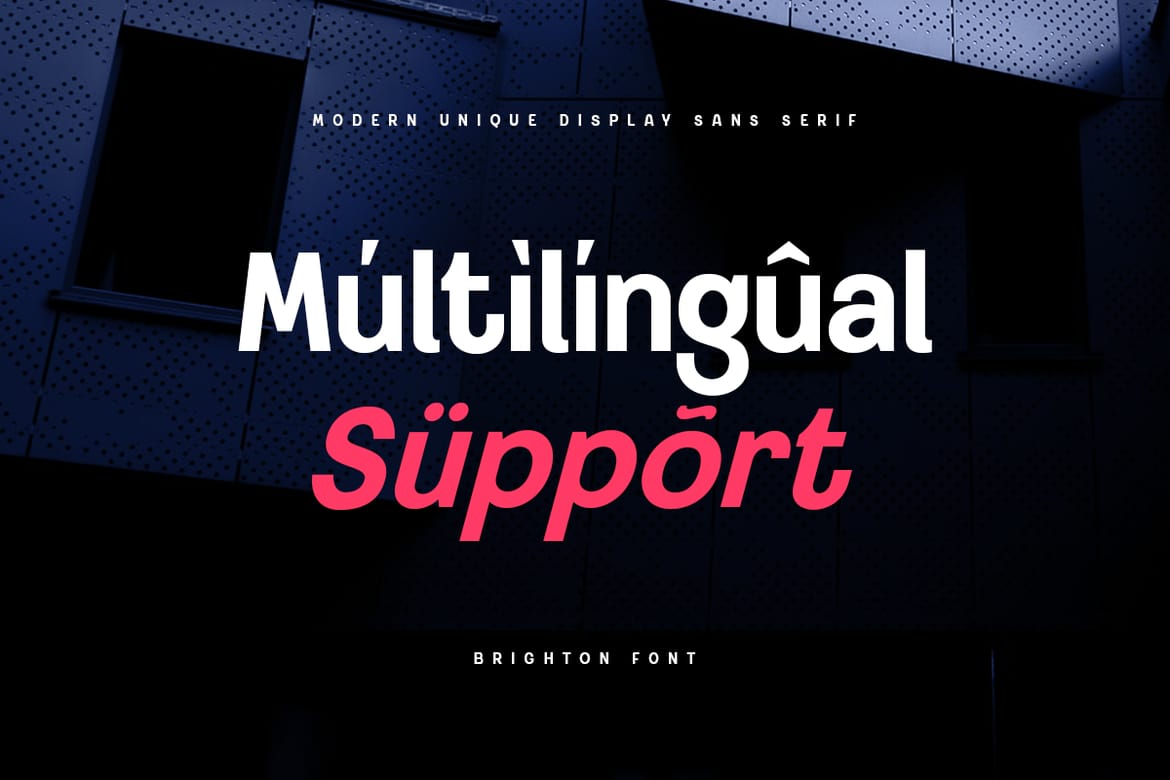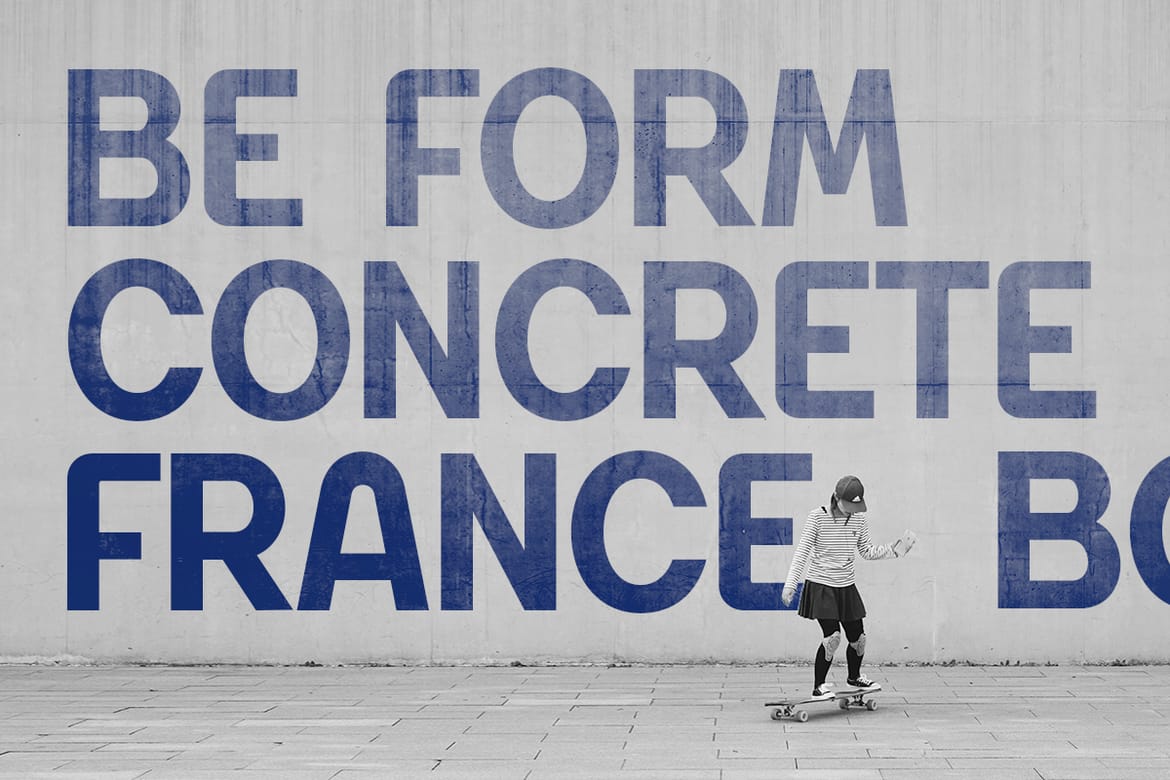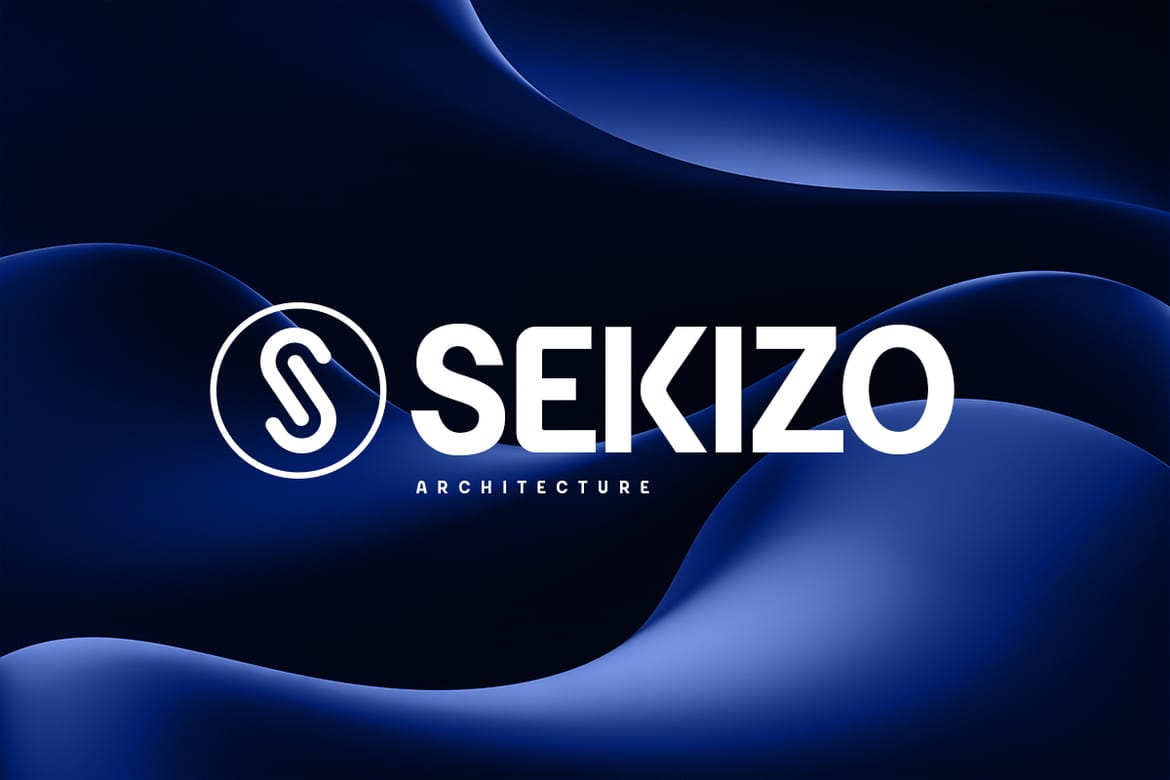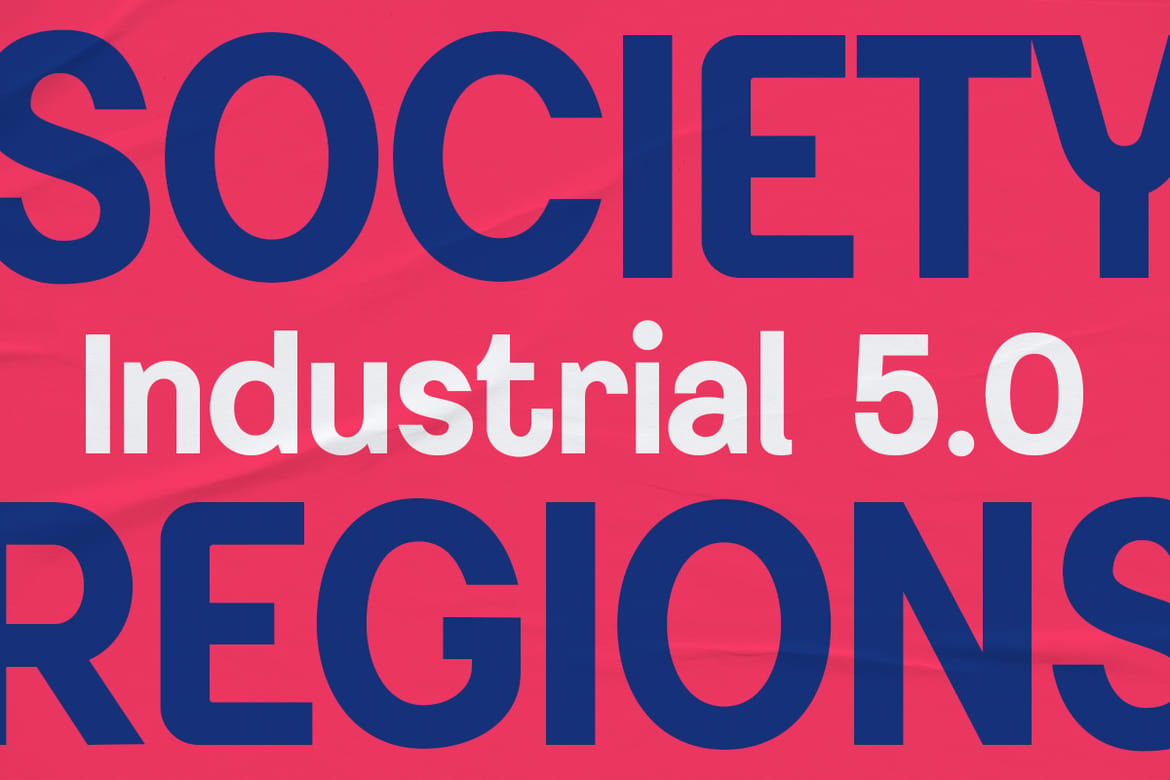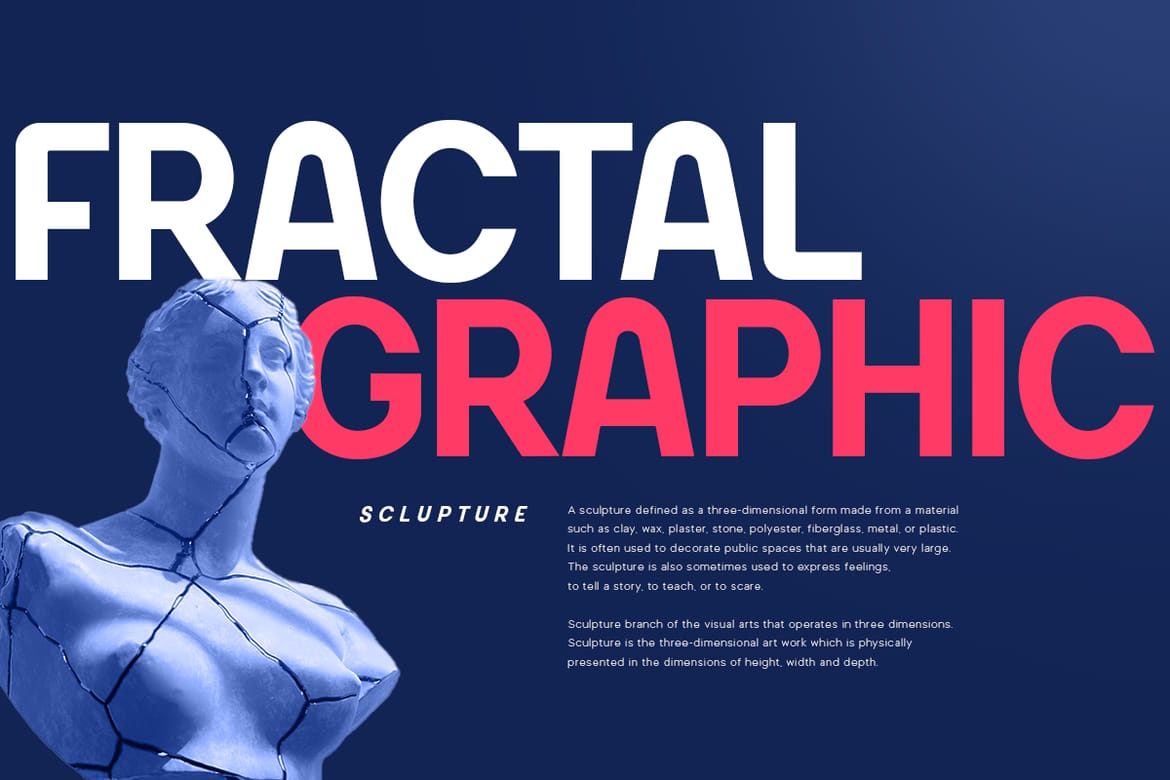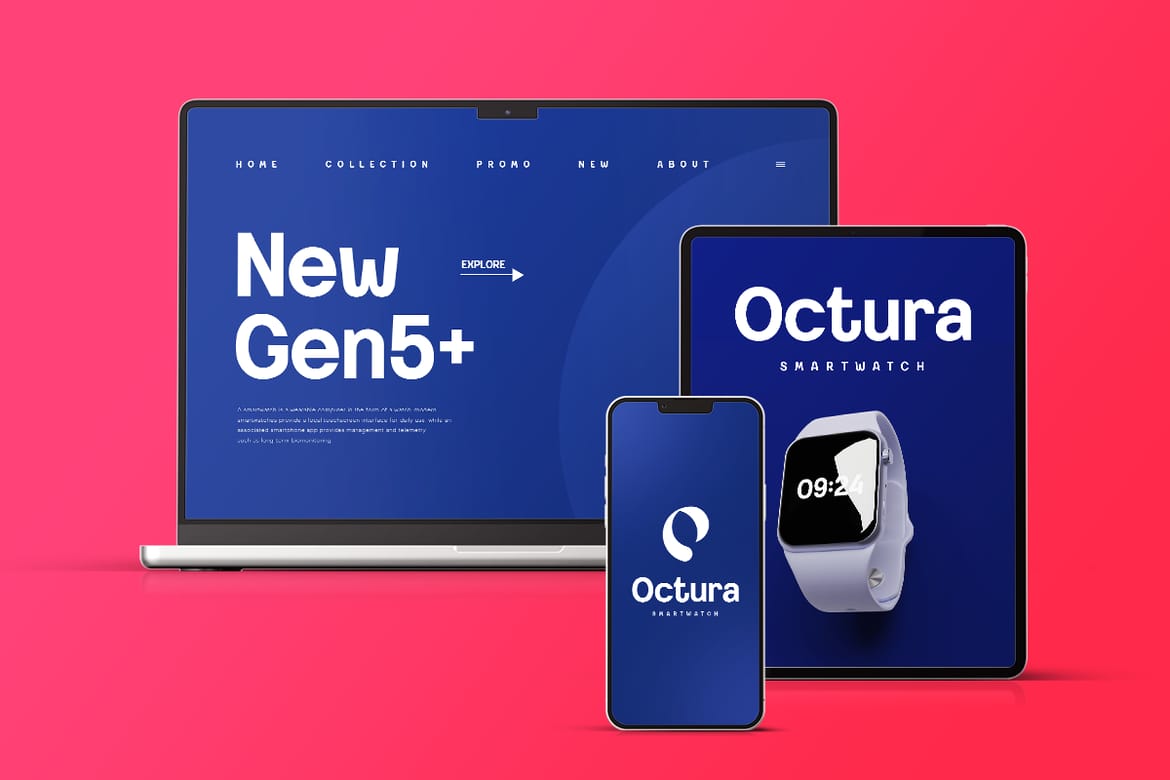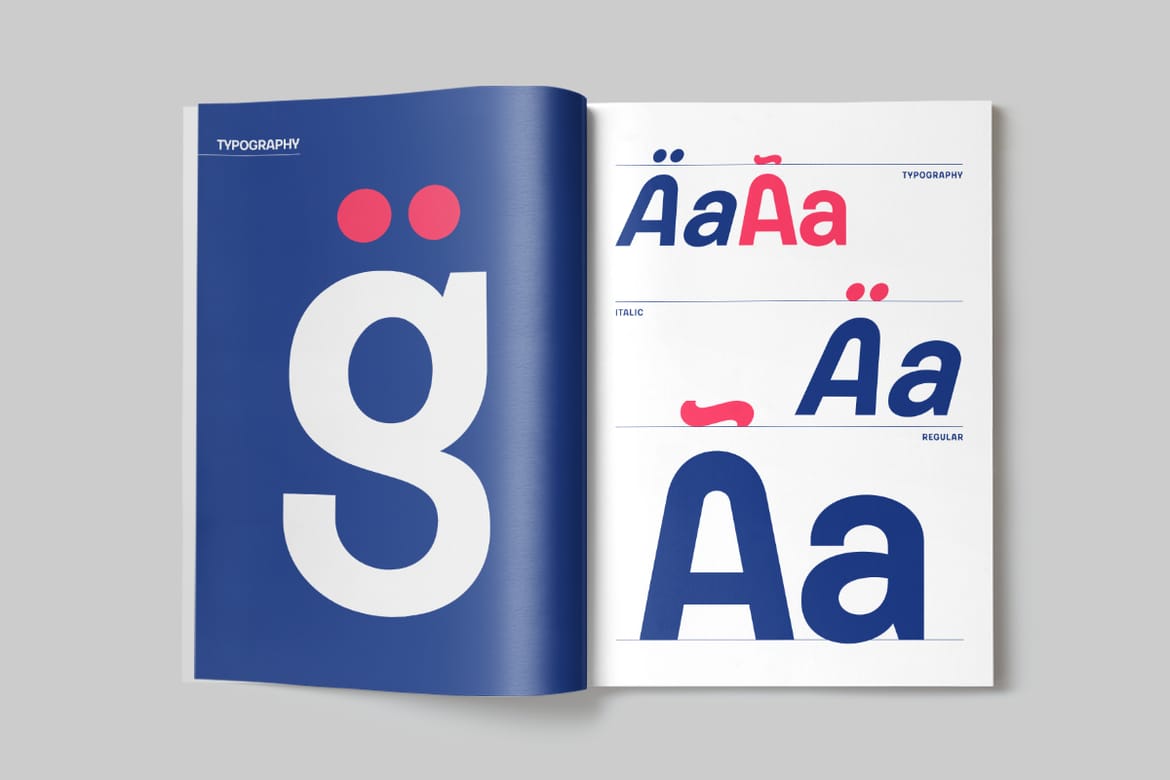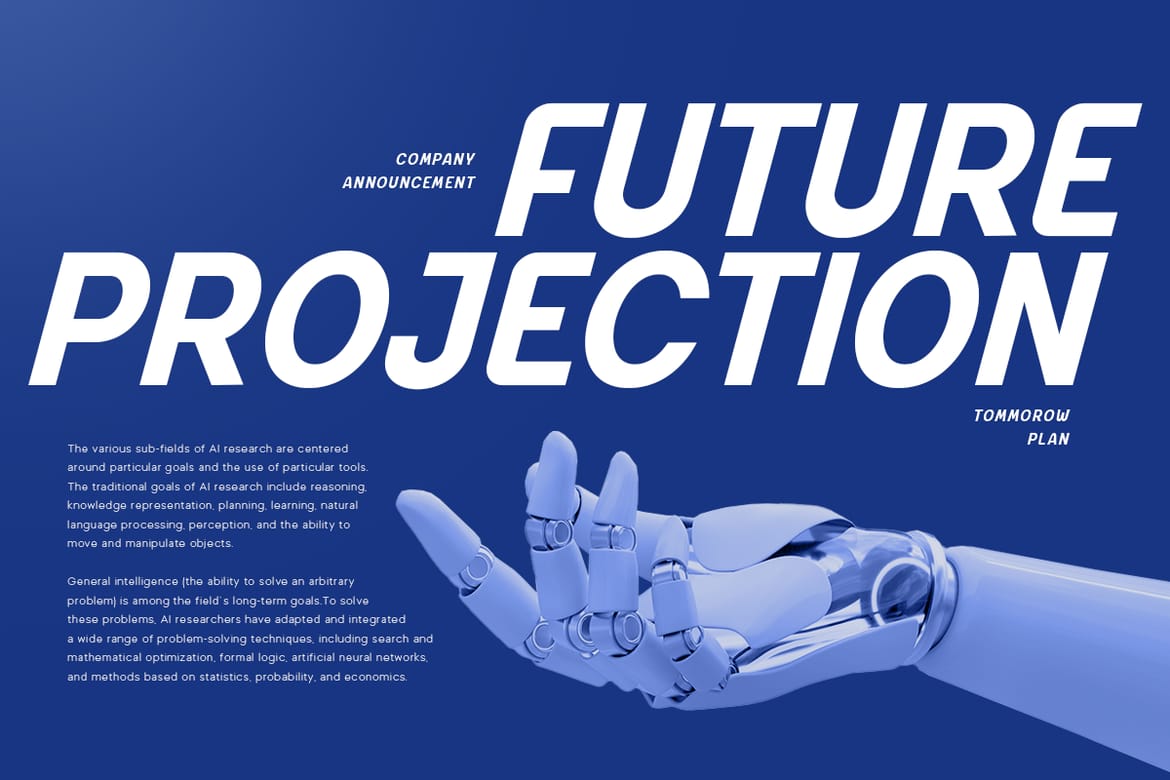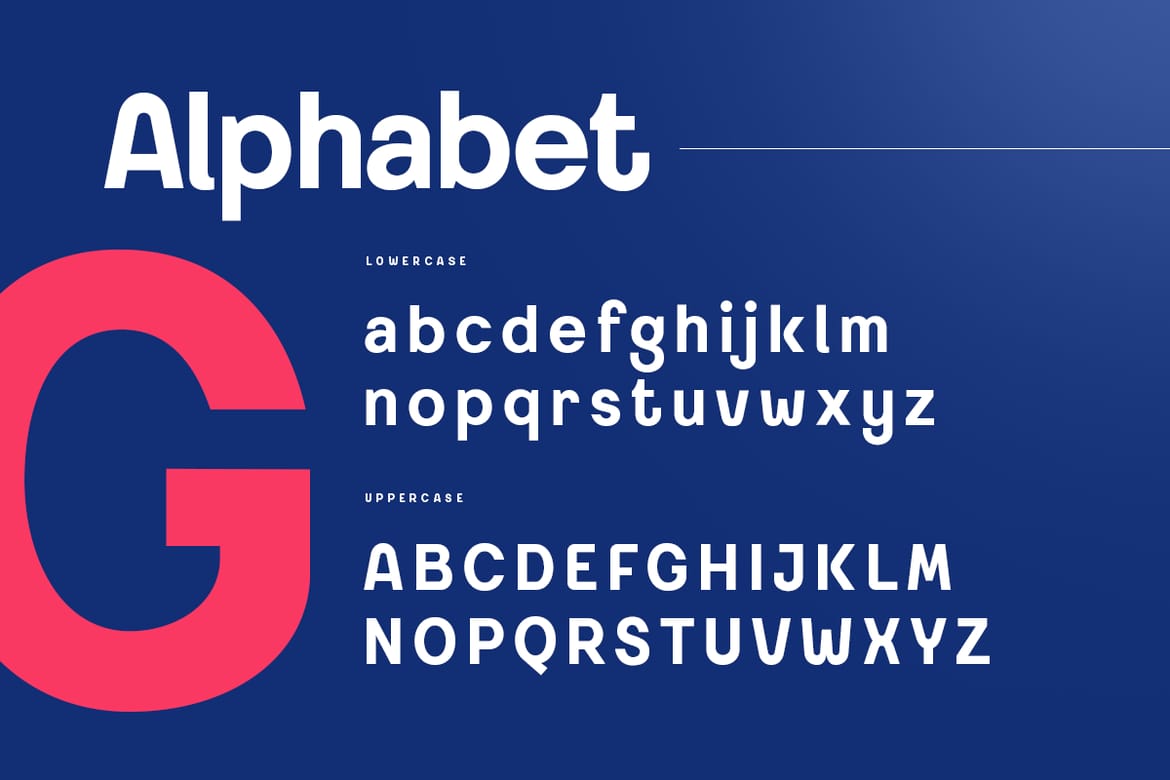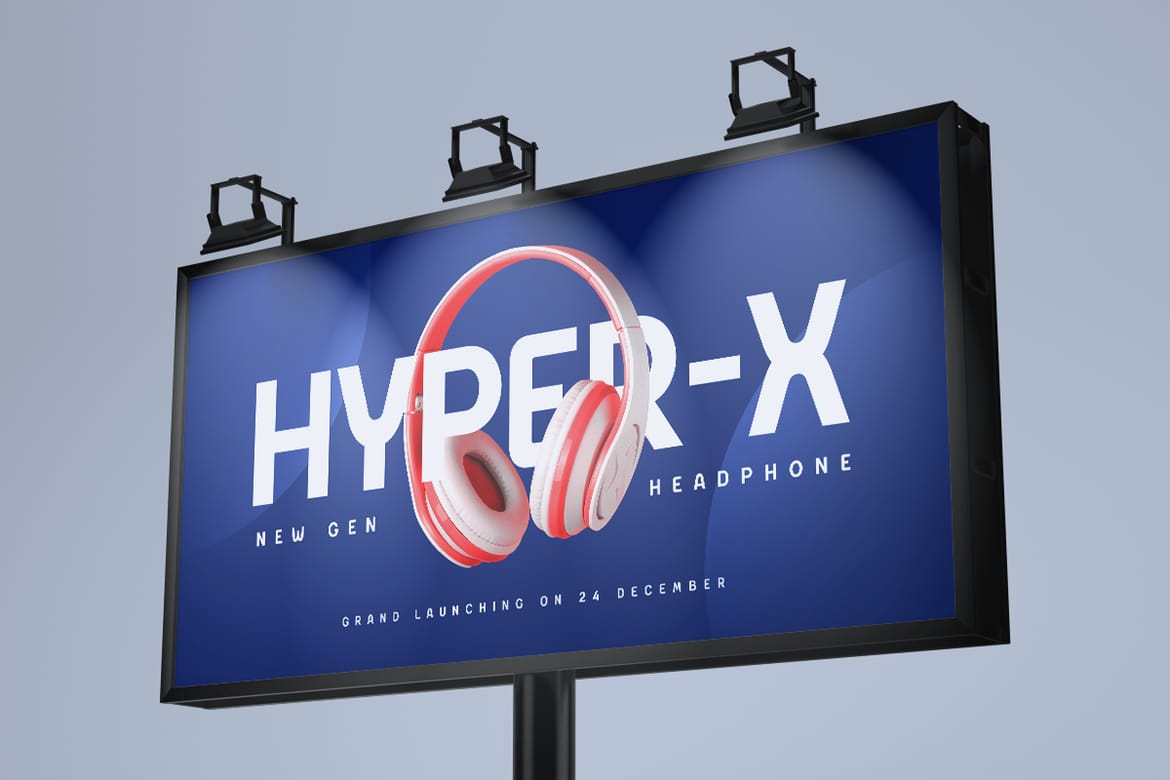
Brighton, a Modern Unique Display Sans Serif is Corporate Logo Sans Serif Font is a well-balanced modern font with a minimalist, unique, and iconic sans serif, font that you can combine to get any variations and unique shapes easily just in seconds. It is a sans serif font with minimalist style that perfect for branding projects, logo, poster designs, social media posts, advertisements, product packaging, product designs, label, photography, watermark, invitation, stationery, and any projects, it makes with a high level of legibility.
Character set A-Z
Numerals & Punctuation
Accented Characters (West Europe)
- Minimalist corporate sans serif
- Regular and Italic versions